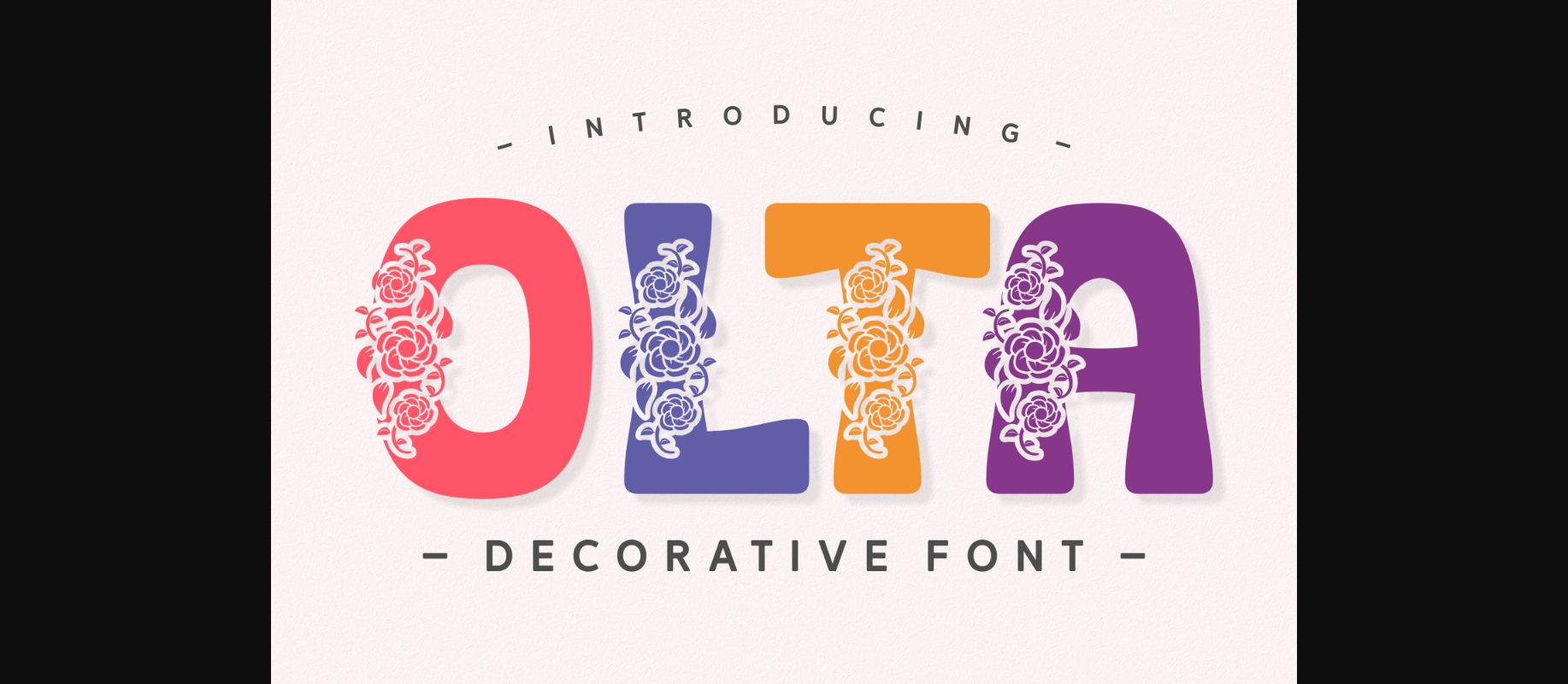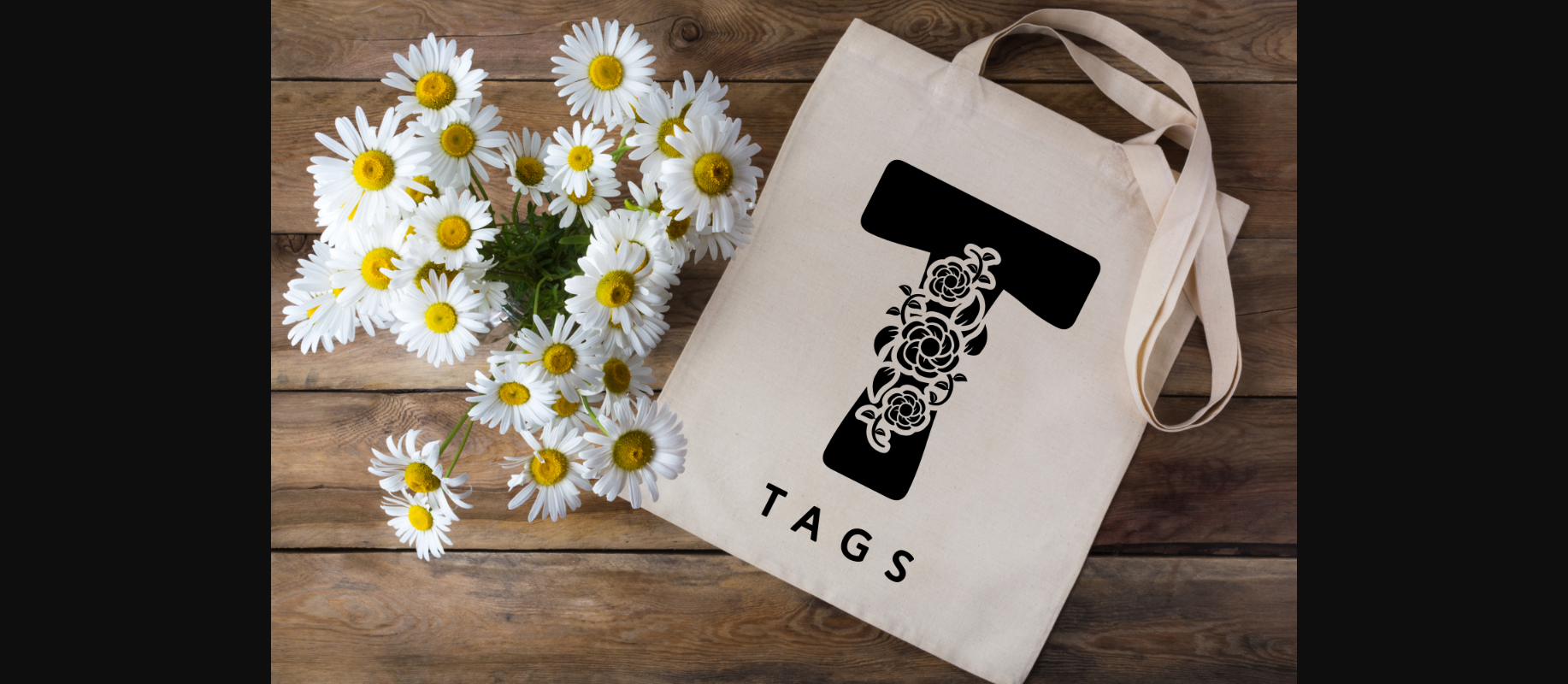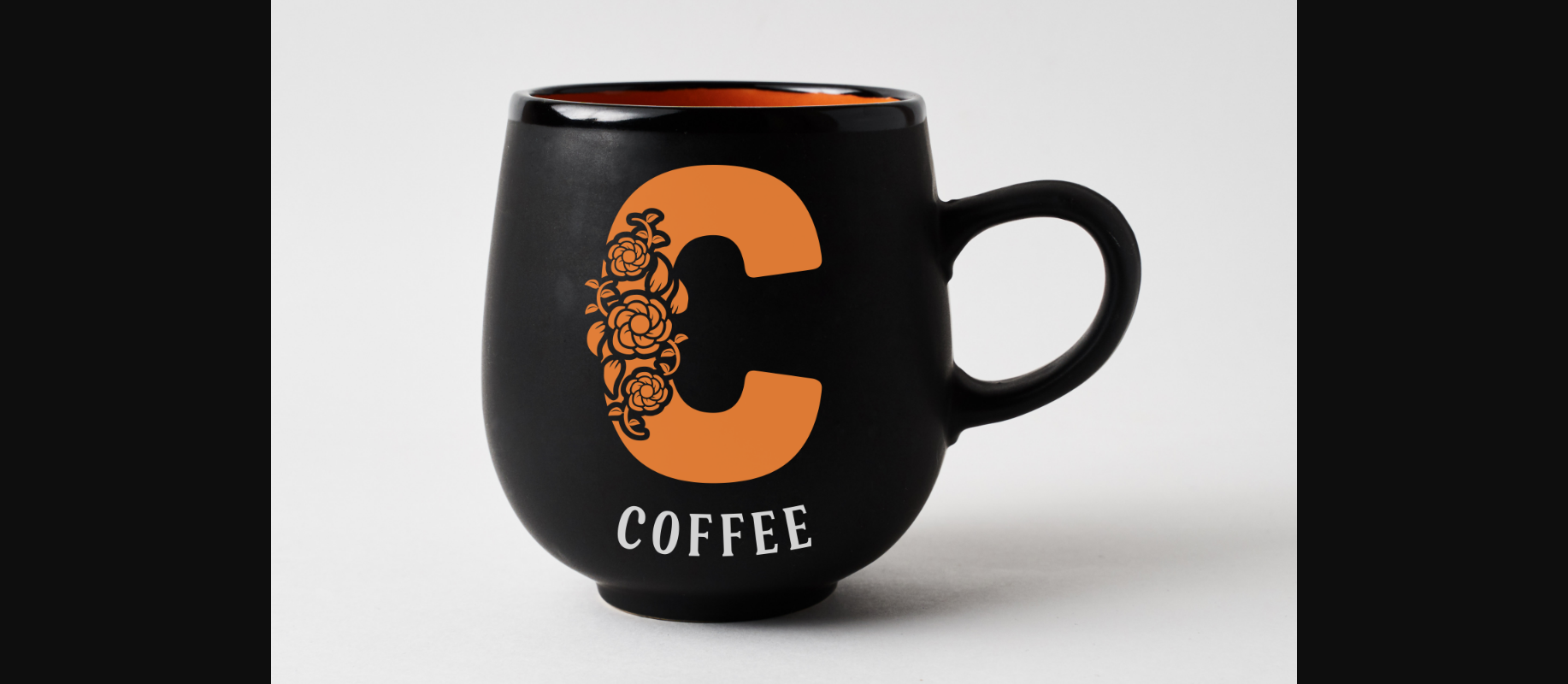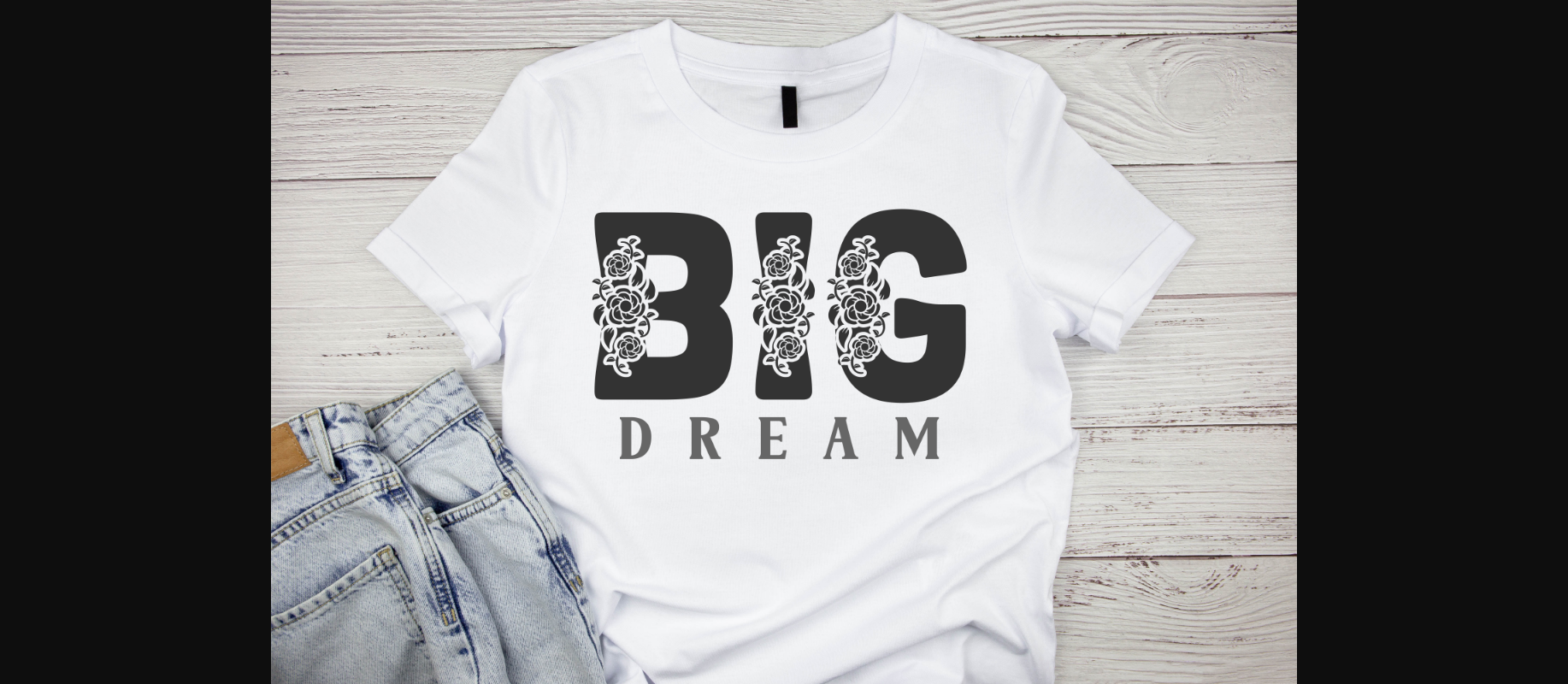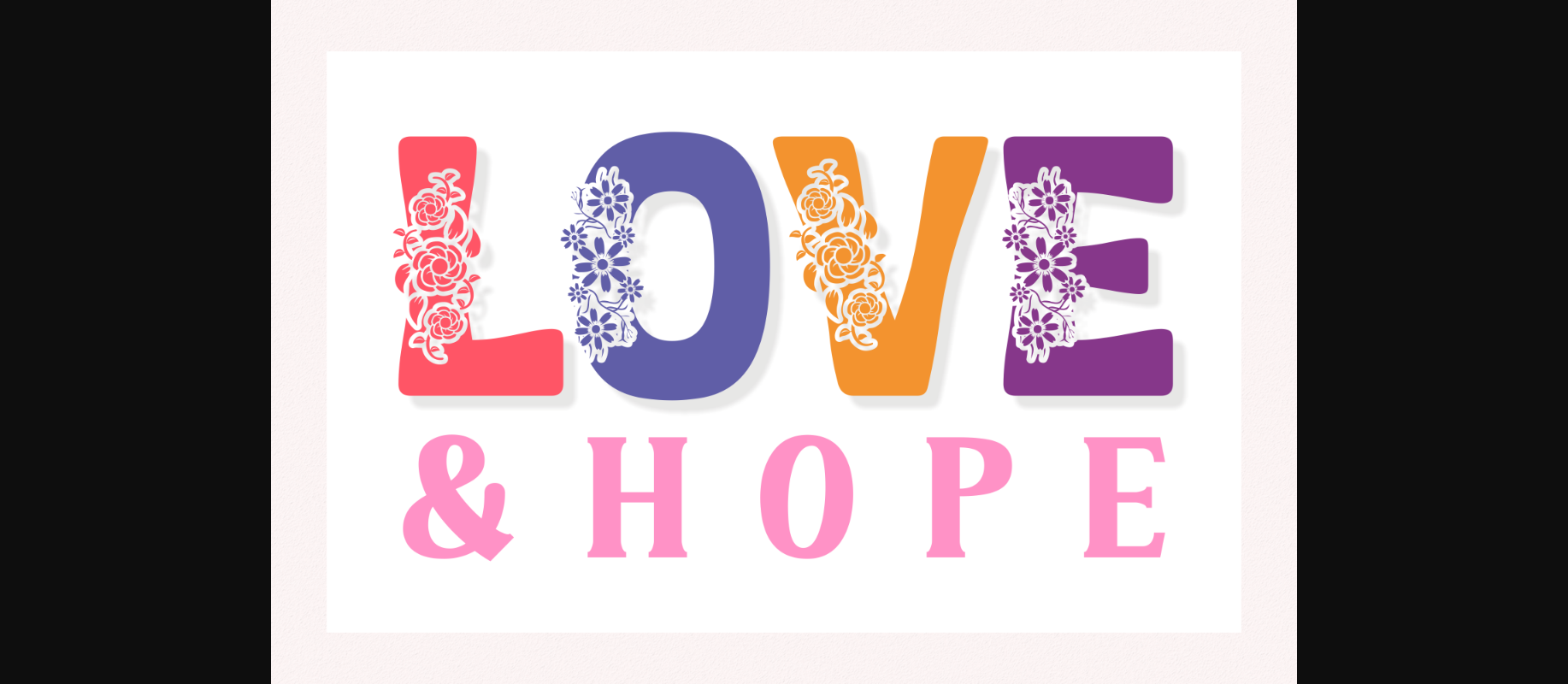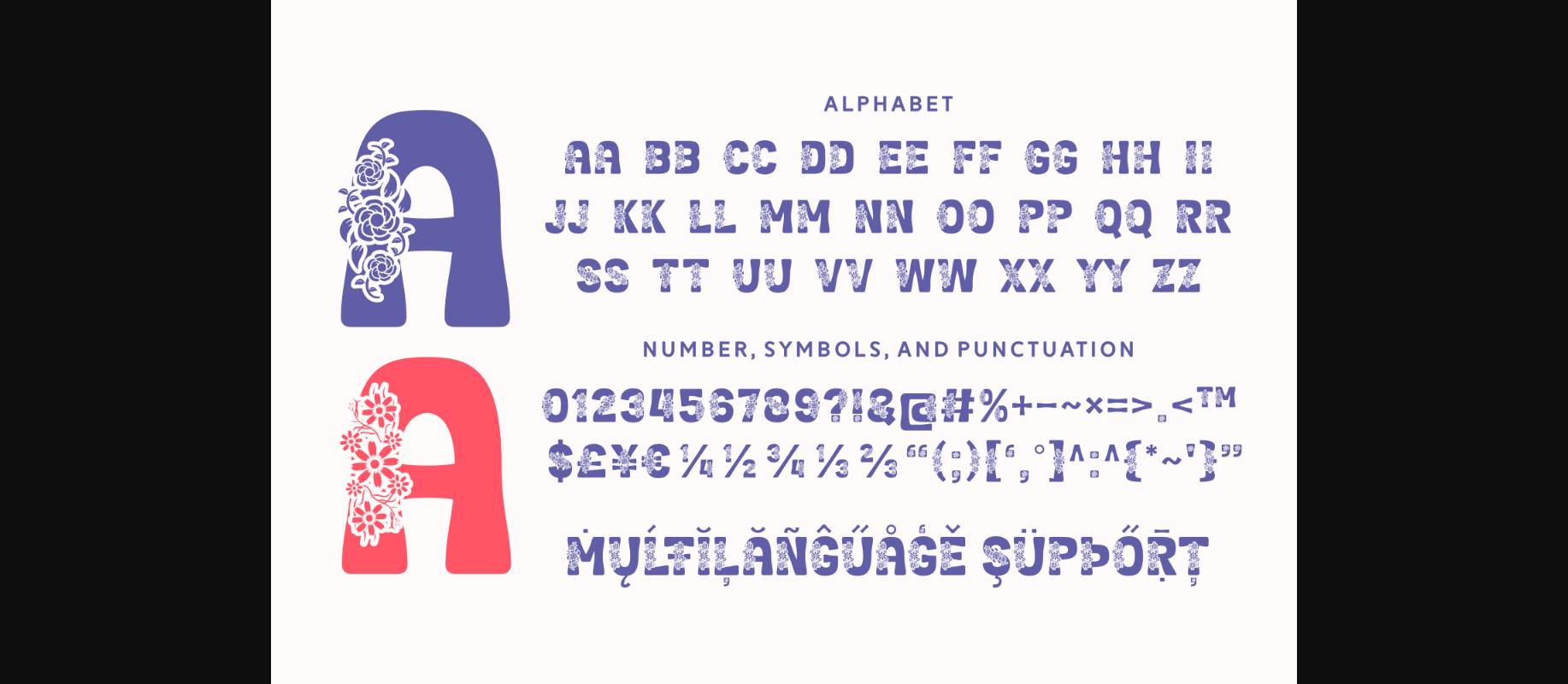
Olta Font
About Olta Font
Olta is a beautiful decorative font with tall and thick characters. Olta font is inspired by the spring details. You can see gorgeous flower designs on each character. This creative typeface is perfect for monogram designs, packaging, clothing, fashion, posters, covers, t-shirts, etc.